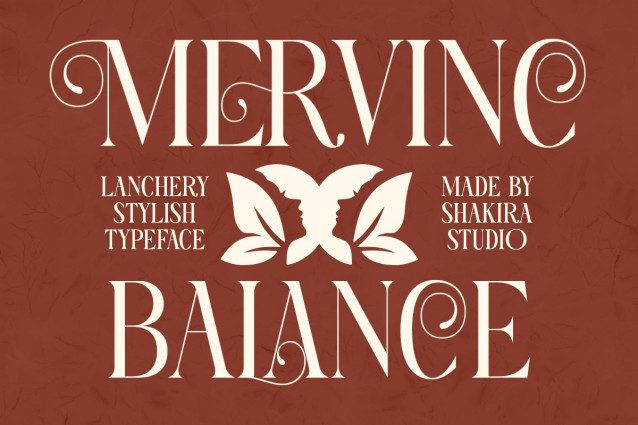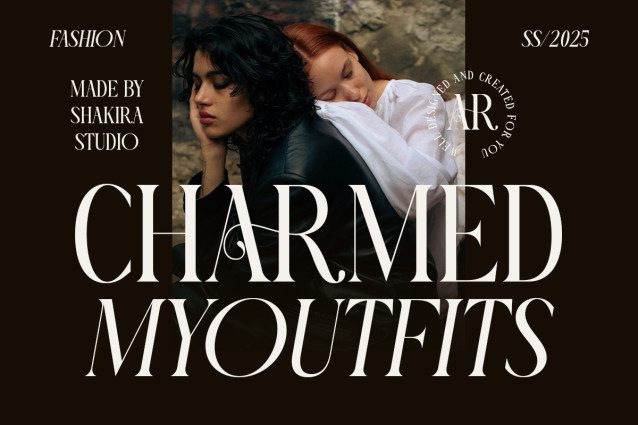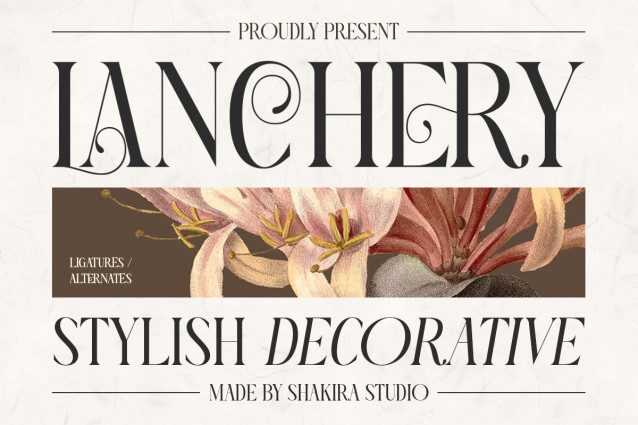
Lanchery Font
Lanchery Font a refined serif typeface with high contrast and graceful sophistication.Lanchery blends elegant curves with sharp details, creating a font that feels delicate yet structured. Each character is carefully crafted to bring a sense of timeless beauty and modern clarity, ideal for design work that values both impact and subtlety.
Perfect for premium branding and editorial design, Lanchery adds quiet confidence and elegance to your visual communication.
Whether used for magazine titles, logo design, or product packaging, it brings a poised aesthetic that feels contemporary while rooted in classic serif tradition.